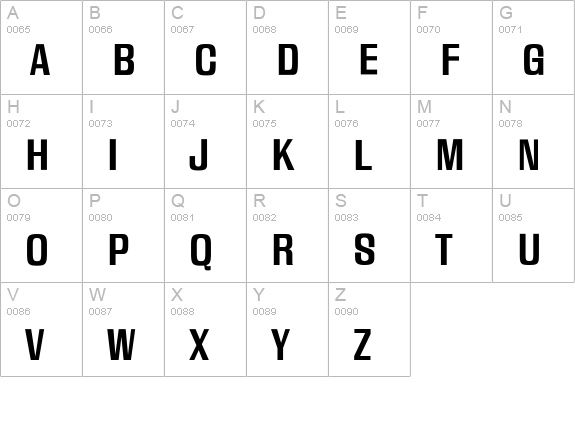
CgFiedlerGothic-Bold Font Details
CgFiedlerGothic-Bold is a strong, high-contrast variant in the CgFiedlerGothic typeface family \xE2\x80\x94 well suited to headlines, attention-grabbing titles, and strong calls-to-action.
CgFiedlerGothic-Bold is a striking and dynamic font that exudes strength and modernity. Its bold and clean lines make it perfect for eye-catching headlines and impactful designs. This versatile font is ideal for a wide range of applications, from branding to posters to web design. What sets CgFiedlerGothic-Bold apart is not only its bold aesthetic, but also the fact that it is available for free. Yes, you read that right - this premium font can be downloaded for free at FontsMarket.com. Don't miss out on the opportunity to elevate your designs with this impressive typeface. Download CgFiedlerGothic-Bold today and let your creativity shine!